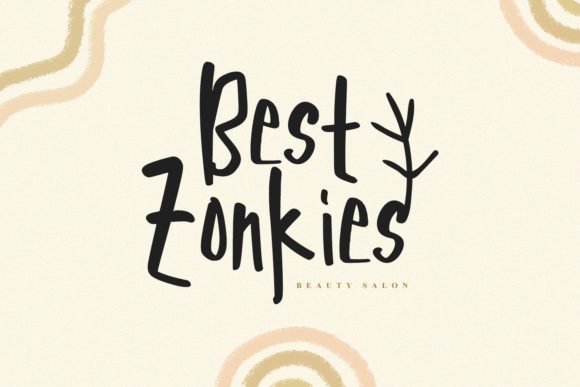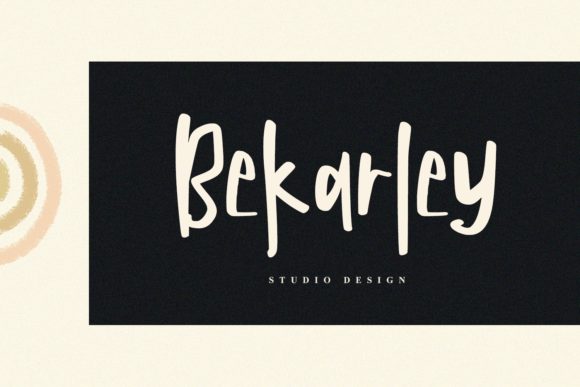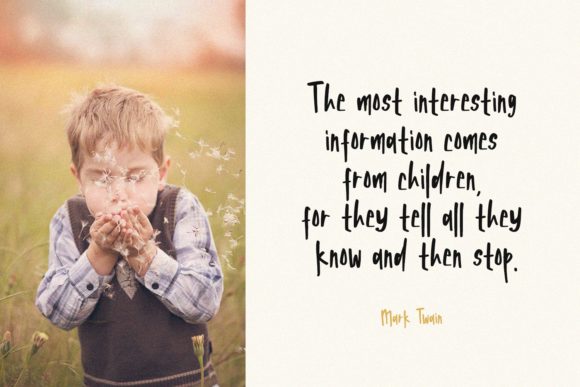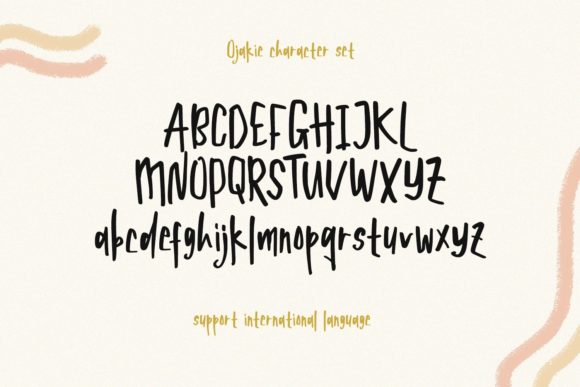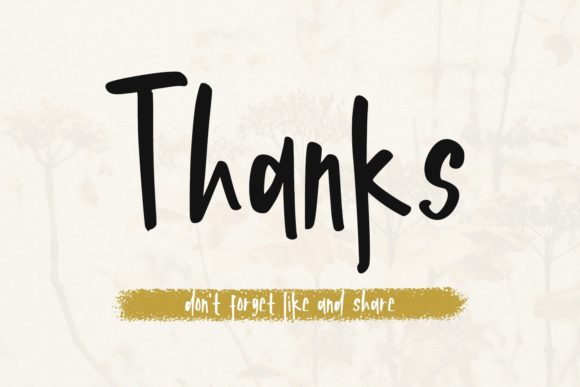
Introduction to Ojakie Font
Have you ever stumbled upon the perfect font that just makes your design project pop? For me, that moment happened when I discovered the Ojakie Font – a friendly display font that exudes a jolly vibe. Its high-quality design has been a game-changer for my creative projects, and I’m excited to share its awesomeness with you.
As a designer, I’m always on the lookout for reliable design resources that can elevate my work. And let me tell you, Ojakie Font is a valuable addition to any creative arsenal. With its transparent background and free download option, it’s an absolute must-have for any project that requires a touch of whimsy and fun.
Ojakie Font
- High-quality, free download font ideal for creative projects and design resources.
- Comes with a transparent background, making it suitable for various design applications.
- Each font file is carefully crafted with a resolution of 300 DPI for crisp and clear display.
- Supports a wide range of languages, making it a versatile design resource.
- Includes a variety of unique and creative characters, perfect for adding a touch of personality to any design.
Honest Review: Ojakie Font
As a designer, I’m always on the lookout for high-quality design resources to elevate my creative projects. Recently, I stumbled upon the Ojakie Font, and I’m excited to share my honest review.
- ✨ Unique and quirky design aesthetic that adds a touch of personality to any project.
- ✨ Compatible with various font sizes and styles, making it a versatile design resource.
- ⚠️ Limited character set, which may not be suitable for longer texts or complex designs.
- ⚠️ Not ideal for designs that require a transparent background, as the font may not render correctly.
Overall, the Ojakie Font is a great addition to any designer’s toolkit. While it may have some limitations, its unique design aesthetic and free download make it a valuable resource for creative projects. With a little creativity, you can work around its limitations and achieve amazing results.
Introduction to Ojakie Font
Ojakie Font is a high-quality design resource perfect for creative projects. This free download offers a unique and versatile font that can be used across various design platforms.
Getting the Most Out of Ojakie Font
To get the most out of Ojakie Font, experiment with different font sizes, colors, and styles to create unique and eye-catching designs. You can also combine Ojakie Font with other design elements, such as images and graphics, to create visually appealing and engaging content.
Common Use Cases for Ojakie Font
Ojakie Font is commonly used in a variety of design projects, including logos, business cards, brochures, and social media graphics. Its high-quality design and transparent background make it perfect for creating professional-looking designs that stand out from the crowd.